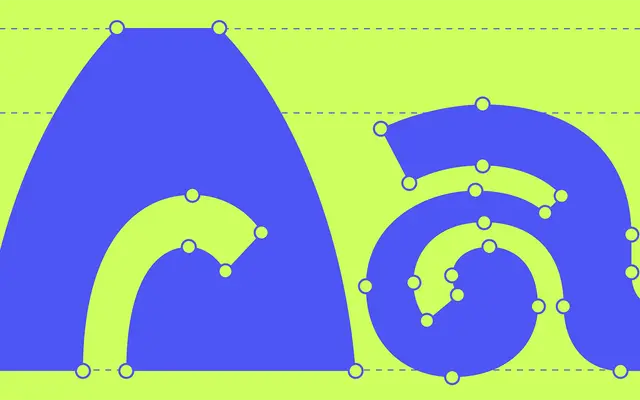
DK Traps
A single-weight display face that turns ink-traps into a conspicuous decorative motif across heavy letterforms.
Available as a free download, DK Traps offers one weight built around exaggerated notched ink-traps cut into bold curves and joins. The effect is deliberately playful rather than technically motivated, making it suited to short-form display use such as posters, logos or event branding. Latin Extended coverage is reasonable for a single-style novelty face, though the lack of weights or italics limits its range.
A single-weight display typeface built around exaggerated ink-traps as a decorative feature rather than a functional one, placing it firmly in novelty display territory.